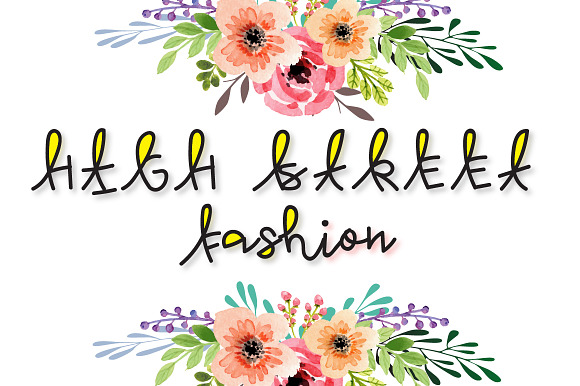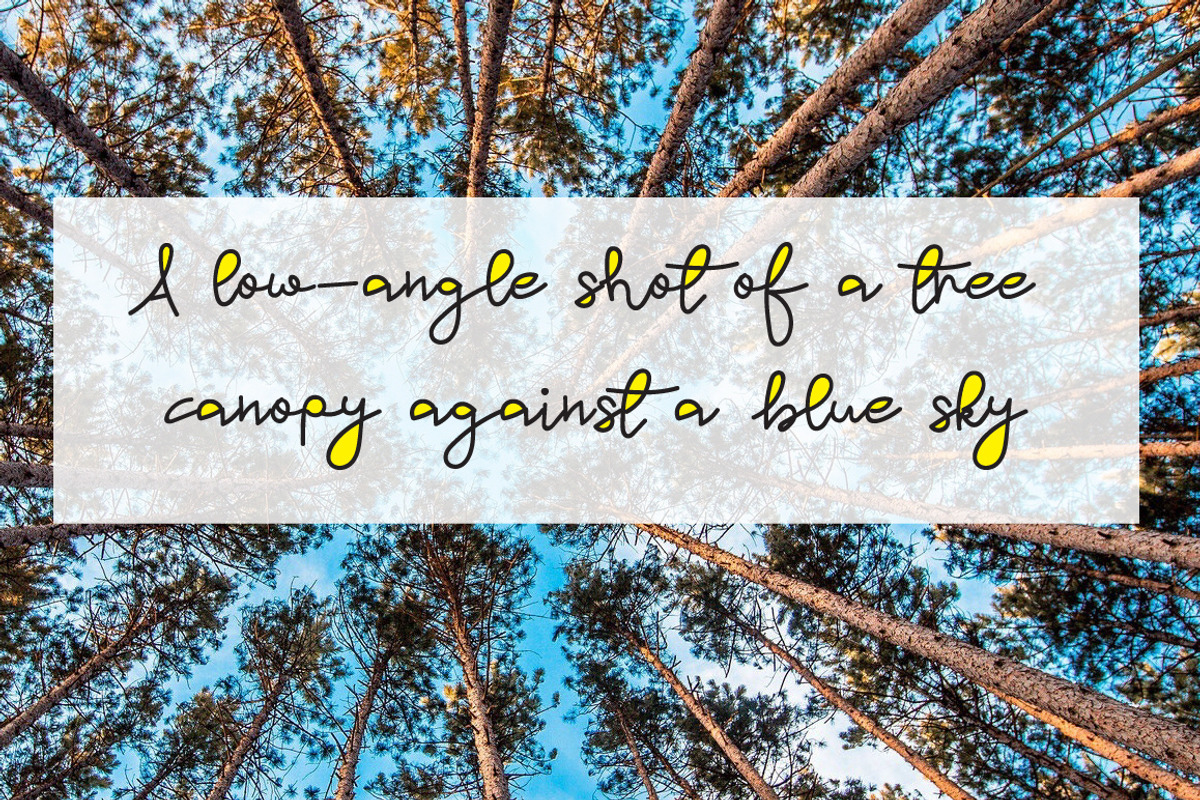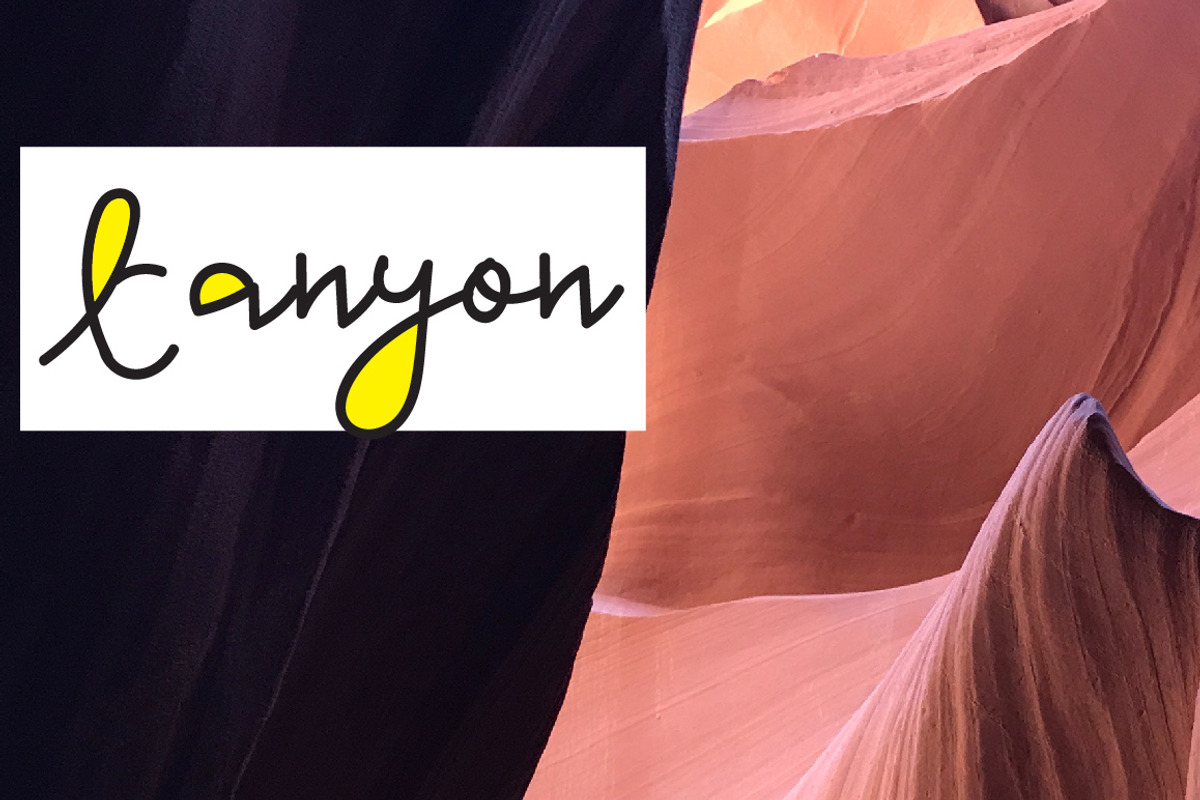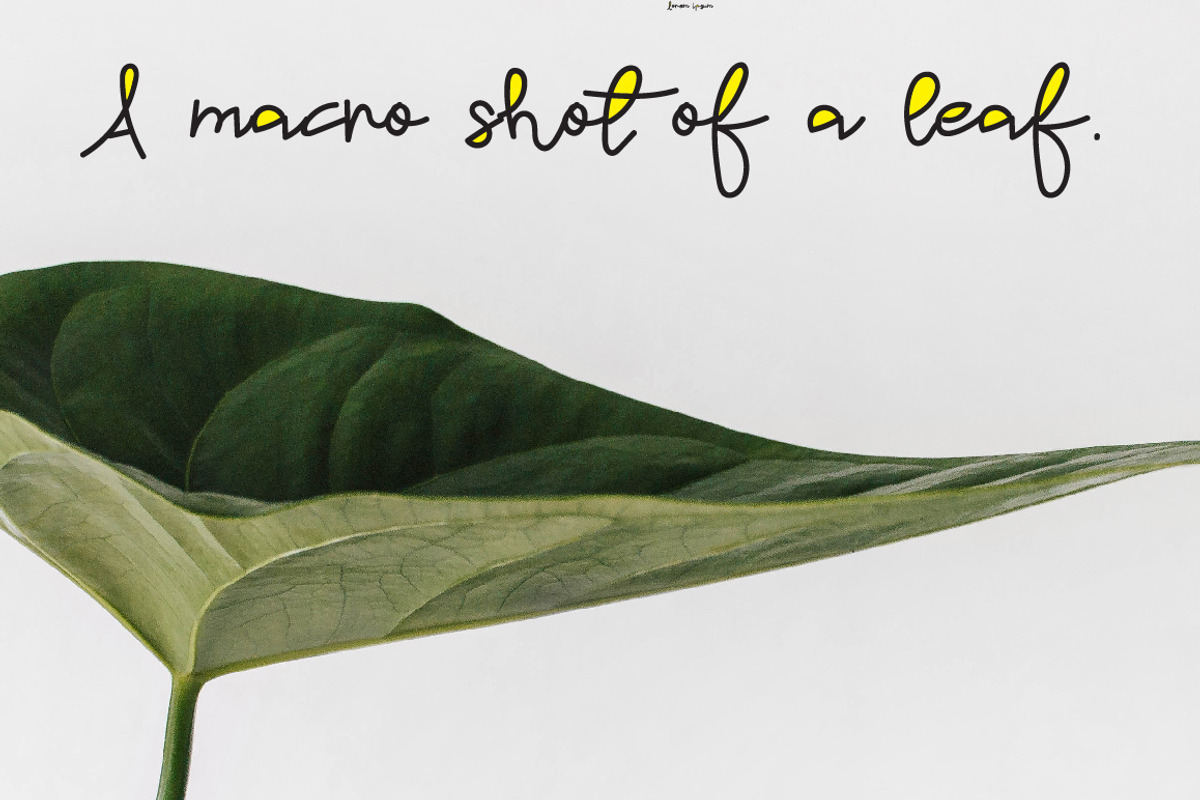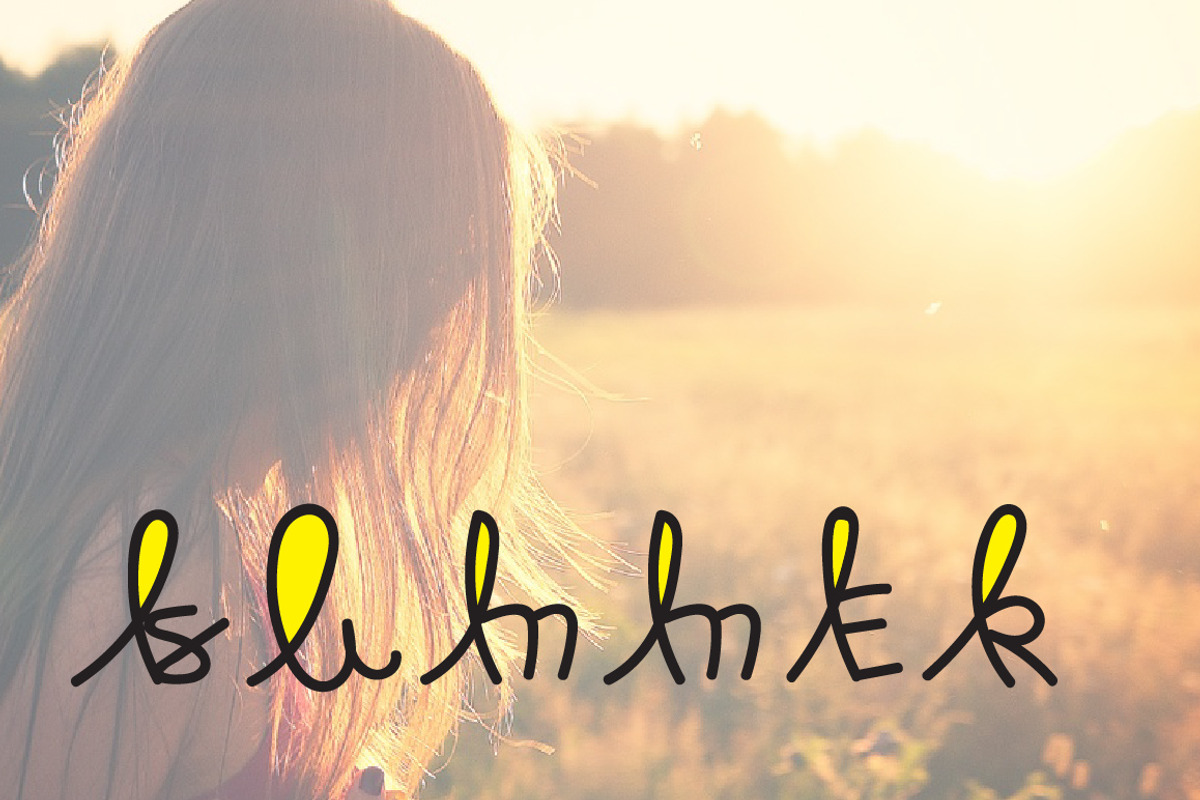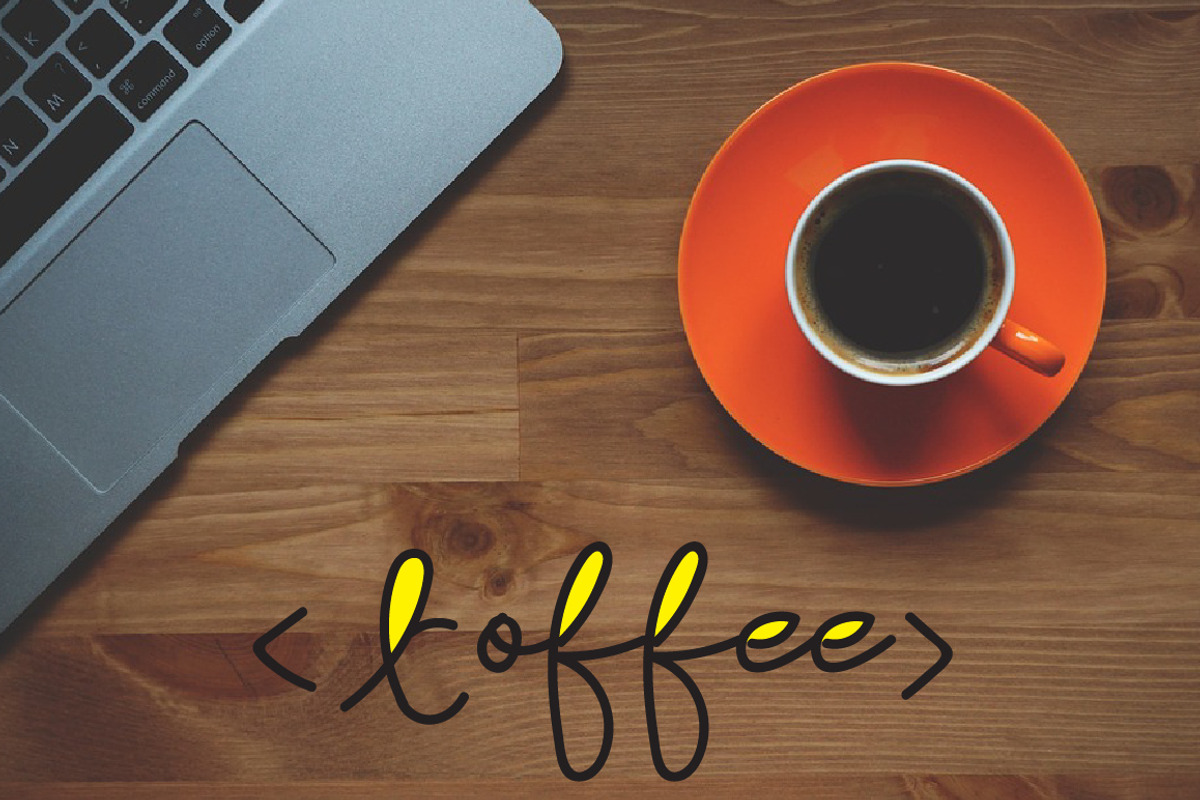
High Street Fashion :multicolor font
High Street Fashion is a modern multicolor script font with tones of alternates, every single letters have been carefully crafted to make your text looks beautiful. With modern script style this font will perfect for many different project ex: quotes, blog header, poster, wedding, branding, logo, fashion, apparel, letter, invitation, stationery, etc.
High Street Fashion :multicolor font by Zmapist fits naturally into Branding, posters, packaging, typography.